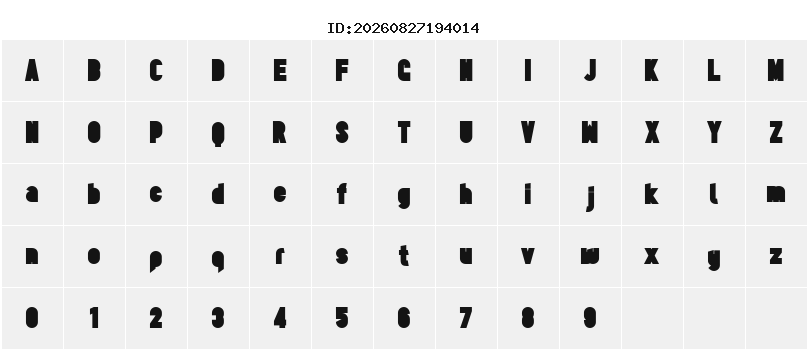
tes© Preview
• Font Name: tes©
• Font Style: UltraBlack
• Font ID: thibaultdietlin/alienfoundery: tes© UltraBlack: 2009
• Full Font Name: tes© UltraBlack
• PostScript Name: tes-UltraBlack
• Character Count: 266
• Designer: thibault dietlin
• Manufacturer: thibault dietlin/alien foundery
About tes©.ttf
tes©.ttf is a modern, elegant sans-serif font designed for ultimate readability and visual harmony. Perfect for branding, headlines, web design, and print materials.